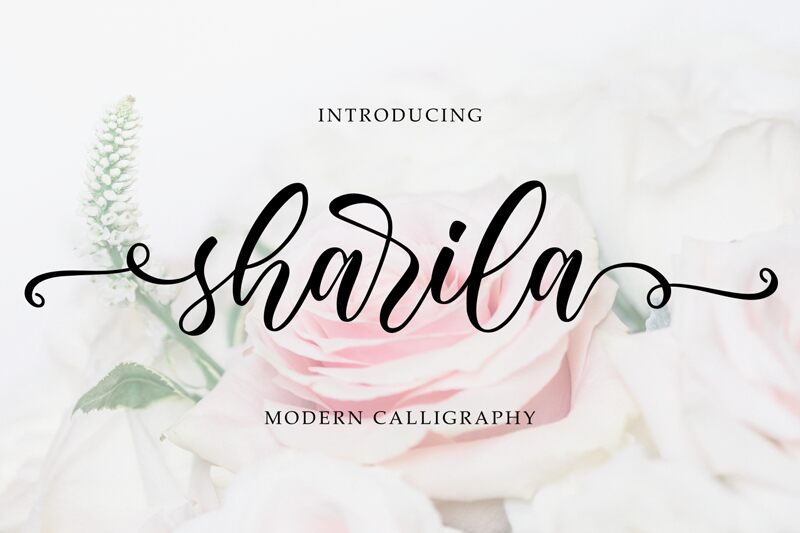
Sharila
Sharila, the semi-light calligraphy font designed by RaffaSyad Studio, is a perfect choice for elegant and refined projects. Its delicate lines and curves are reminiscent of traditional handwriting, making it ideal for wedding invitations, greeting cards, and other formal occasions. The semi-light weight adds a touch of sophistication without being too heavy-handed. Sharila’s fluid letterforms also make it well-suited for branding and logo design. Whether you’re creating a high-end fashion label or an upscale restaurant, Sharila’s graceful script will add an air of elegance to your project.